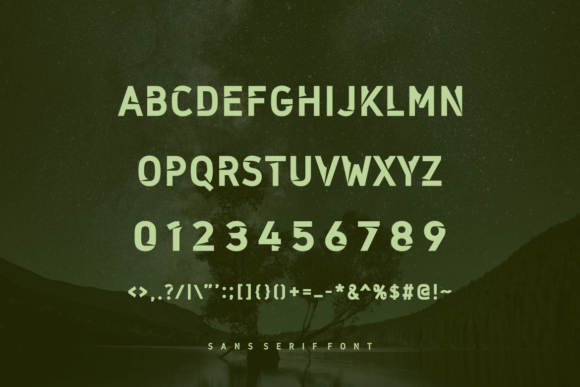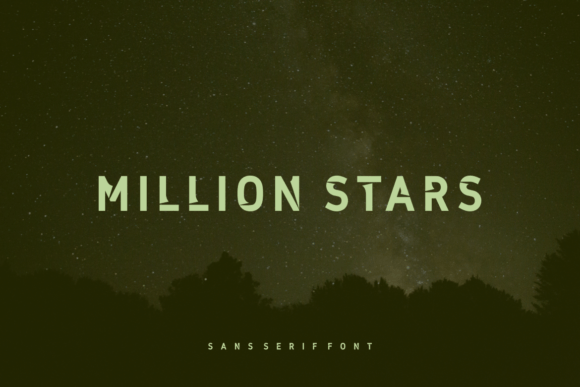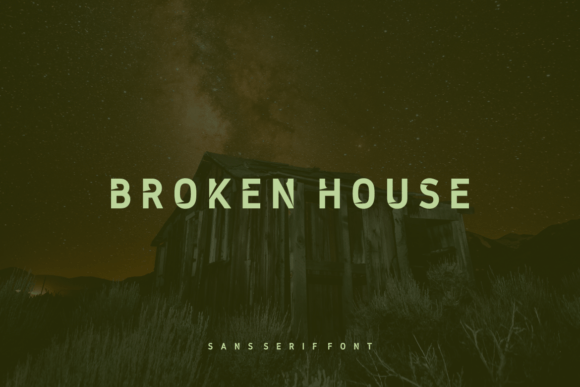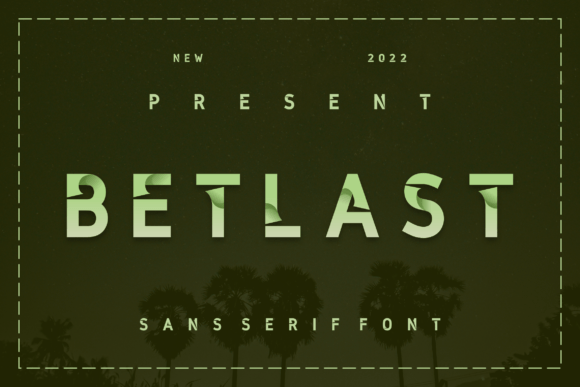
The Ultimate Guide to Betlast Font: Elevate Your Designs with this Modern Sans Serif
I’ll never forget the time I was working on a project for a client who needed a modern and trendy font to match their brand’s fresh new look. I spent hours scrolling through font libraries, but nothing seemed quite right. That was until I stumbled upon Betlast Font. Its clean lines, perfect blend of trendiness, and versatility instantly won me over. In this article, I’ll share my love for Betlast Font, its features, and how to make the most of it in your designs.
An Honest Review of Betlast Font
What I Love About Betlast Font
- ✨ Modern and trendy aesthetic: Betlast Font has a sleek, contemporary look that’s perfect for a wide range of design projects.
- ✅ Perfect for digital and print designs: Whether you’re creating social media graphics, presentations, or greeting cards, Betlast Font adapts seamlessly.
- 💡 Highly legible: Even at small sizes, Betlast Font remains clear and easy to read.
- 🎨 Great for creative freedom: With its range of OpenType features and glyphs, Betlast Font offers plenty of room for experimentation and customization.
While Betlast Font is an excellent choice for many projects, there are a few things to keep in mind:
- 🤔 Limited serif options: As a sans serif font, Betlast might not be the best fit for projects requiring a more traditional or formal look.
- ⚠️ Some characters may require manual kerning: While Betlast Font is generally well-spaced, certain character combinations might need a bit of manual adjustment for optimal results.
The Story Behind Betlast Font
Betlast Font was designed with the modern creative in mind. Its designer aimed to create a font that was both trendy and versatile, suitable for a wide range of projects. By combining clean lines, a modern aesthetic, and a focus on legibility, Betlast Font quickly gained popularity among designers and hobbyists alike.
Q: What type of projects is Betlast Font best suited for?
A: Betlast Font is perfect for a variety of projects, including digital designs, presentations, greeting card making, and crafting.
Q: Does Betlast Font support OpenType features?
A: Yes, Betlast Font features a range of OpenType features, including stylistic alternates and glyphs, allowing for greater customization and creativity in your designs.
Q: Is Betlast Font easy to read?
A: Absolutely! Betlast Font is designed with legibility in mind, making it suitable for both digital and print designs where readability is crucial.